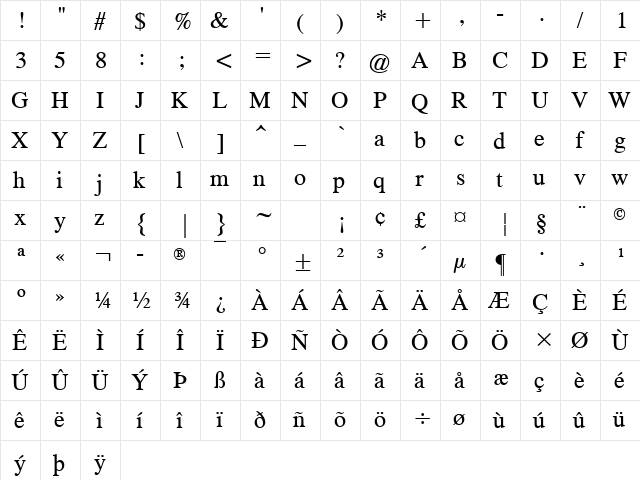
KCStar Regular
Design Context for KCStar Typeface
KCStar takes a measured approach to typography — its balanced proportions and neutral character make it a reliable workhorse for both digital and print work.